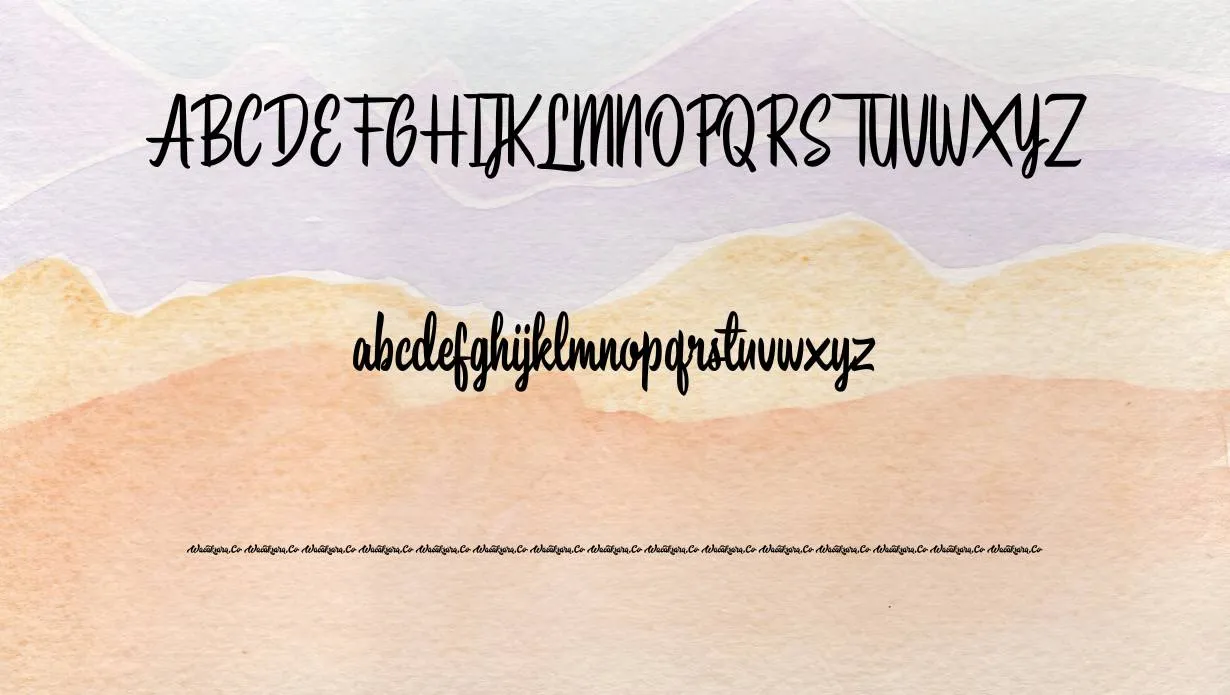
The Southbeach Font is a vibrant and summery typeface often used for travel-related designs, beach-themed content, or playful branding. In Adobe Photoshop, this font is utilized to create lively and colorful text for travel brochures or beach event posters, capturing the essence of summer.
When integrated with CSS, it brings a sunny and cheerful vibe to web content, making it perfect for travel blogs or beach resort websites. Canva users frequently opt for this font to design vibrant social media posts, travel advertisements, or cheerful brand promotions, infusing a sense of sunshine and vacation vibes into the designs.